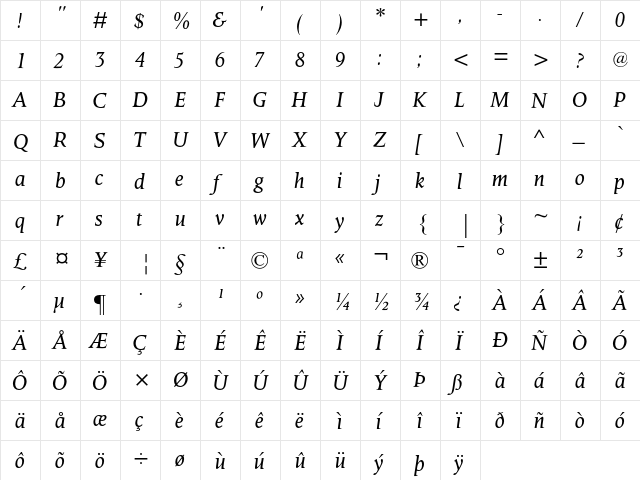
Octavian MT Italic
Design Context for Octavian MT Typeface
Octavian MT offers clean, dependable letterforms without strong stylistic allegiance, making it a practical choice for designers who need flexibility. The dynamic lean of this cut emphasises speed and emphasis in any layout.
Pro Tip: Try Octavian MT for annotation and caption copy alongside an upright companion — the contrast in angle creates a dynamic but ordered typographic system.